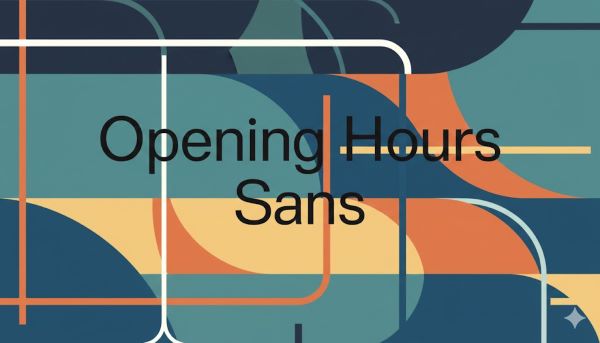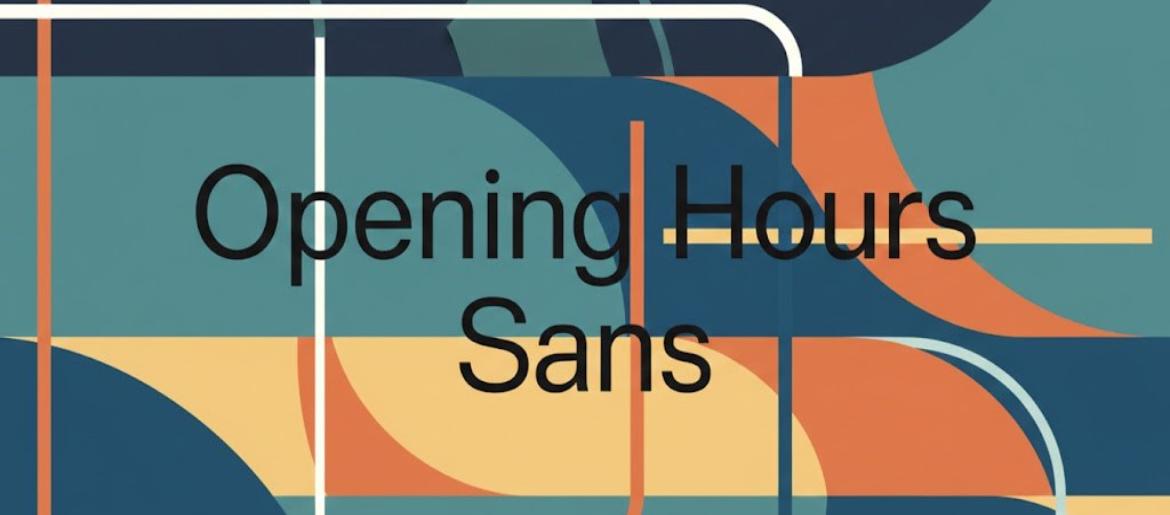
Opening Hours Sans Font
Opening Hours Sans is a sleek, neutral grotesque designed by Opening Hours Studio that puts clarity front and centre. Its clean lines and well-balanced proportions make it equally suited to editorial layouts, corporate branding, UI design, and minimalist websites. Nothing gets in the way of the message. Released under the SIL Open Font License, free for personal and commercial use, and supporting 35 languages — a dependable, unassuming workhorse built for precision-focused design.